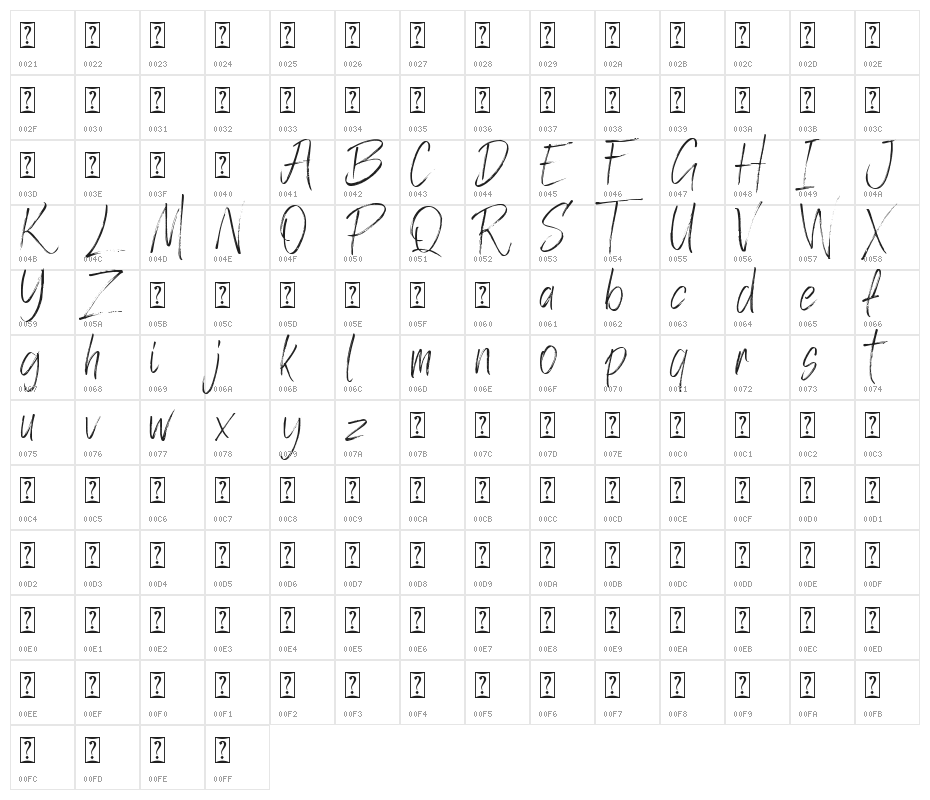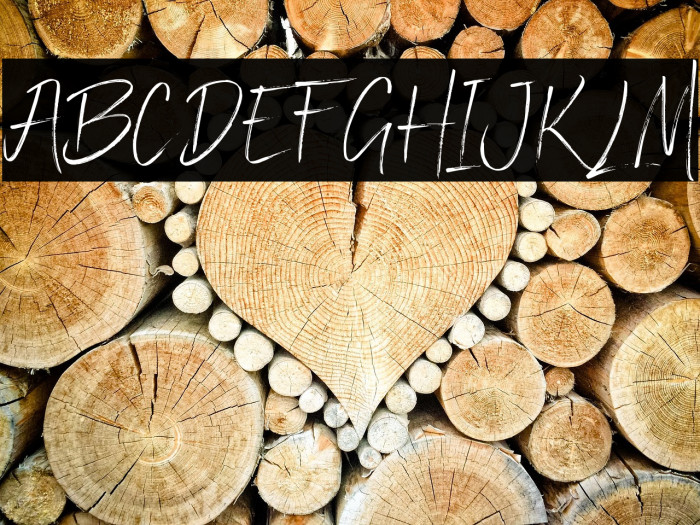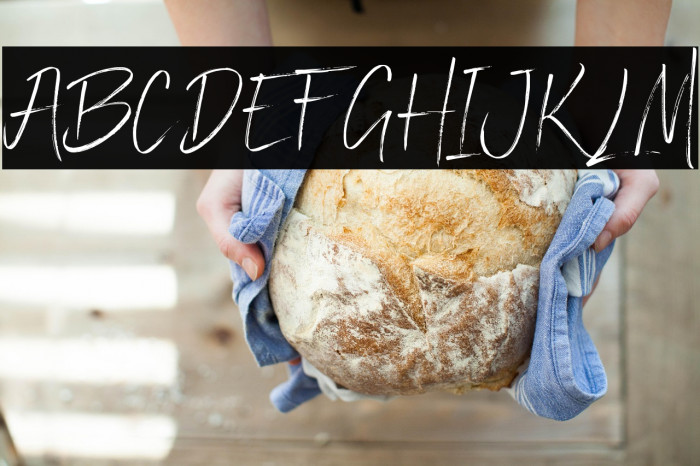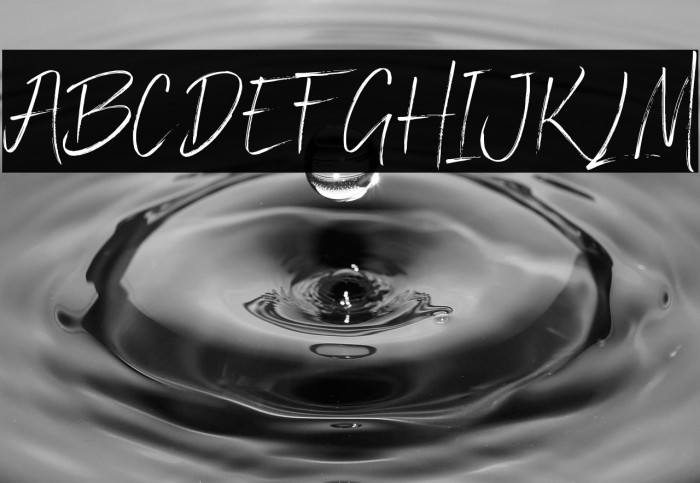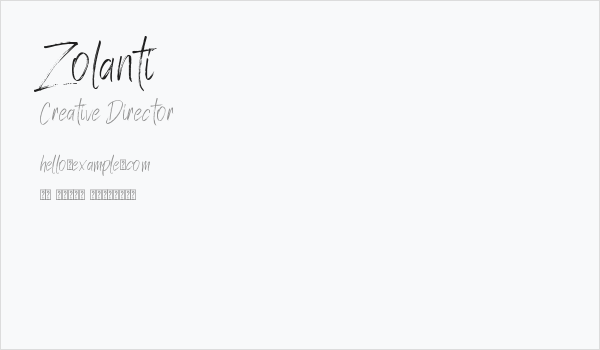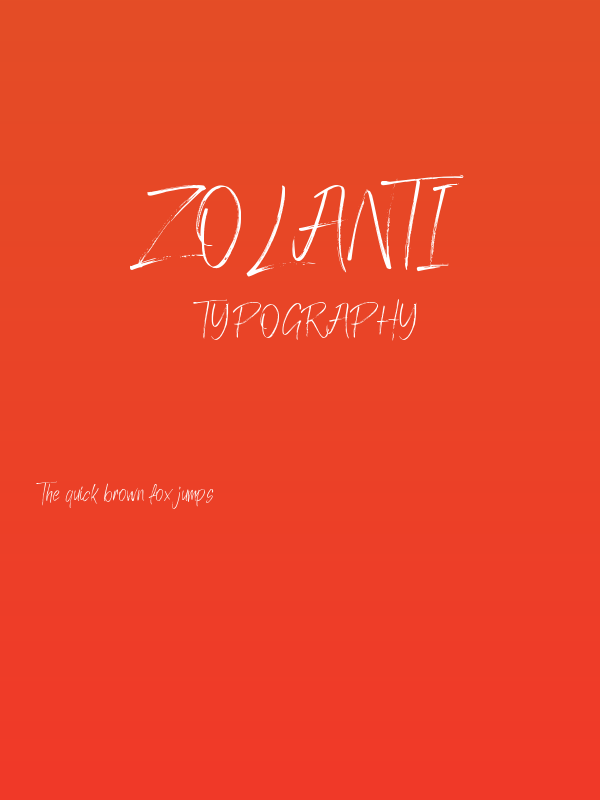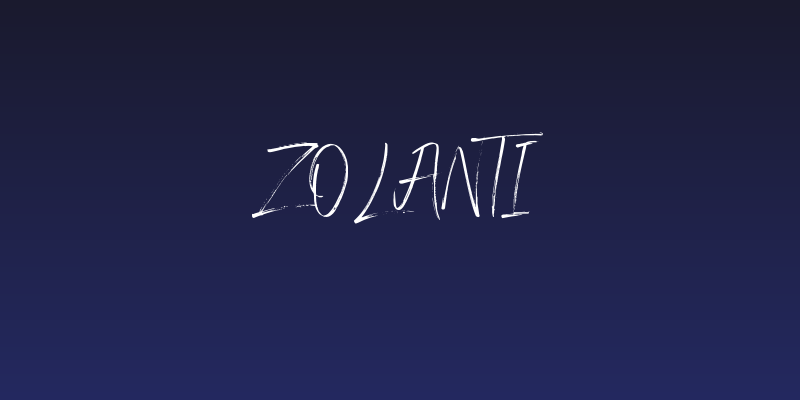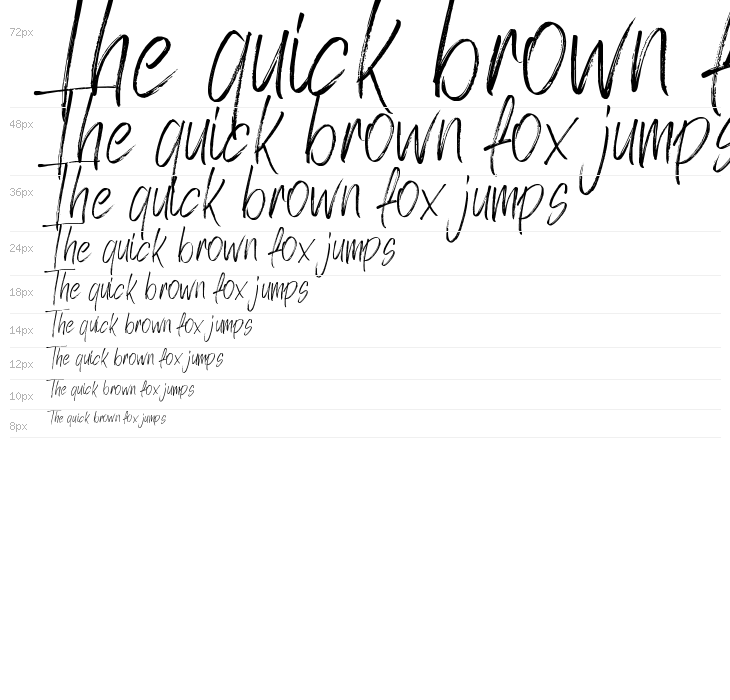
Zolanti Font
Zolanti Description
This font features a dynamic and expressive handwritten style, characterized by its fluid and organic strokes. The letters have a natural, brush-like appearance, with varying thickness that adds a sense of movement and energy. The uppercase and lowercase letters maintain a consistent style, while the overall design conveys a casual yet artistic feel. The font's unique charm makes it suitable for creative projects that require a personal touch.
| Proposed Projects | Ideal for greeting cards, invitations, artistic posters, and branding materials that seek a personal and creative touch. |